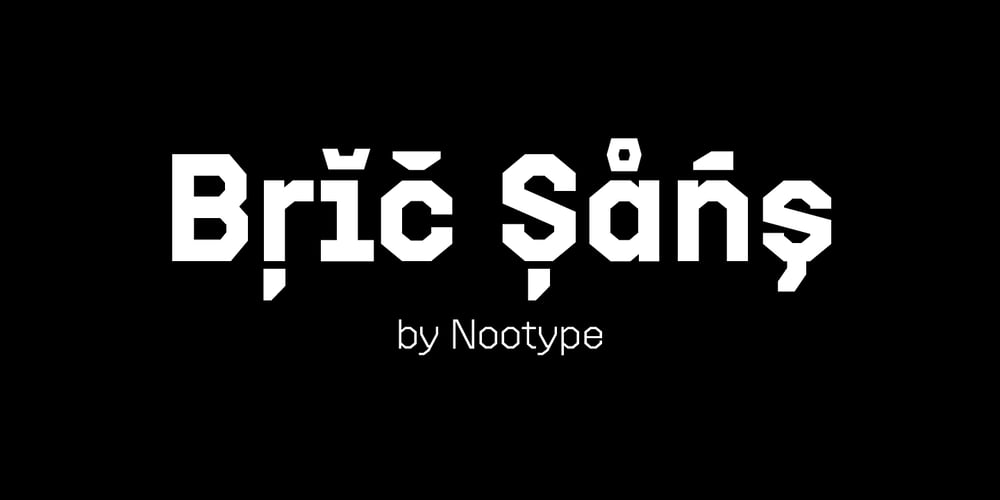
Bric Sans Font Family was designed by Nico Inosanto and published by Nootype. Bric Sans contains 12 styles and family package options. Bric Sans is squared, it was inspired by colleges typefaces. Capitals aren’t contrasted, giving a raw aspect to this typeface. The variety of styles makes this sporty typeface ideal for editorial projects, posters, packaging, branding, etc… The default setting of the numerals is tabular, proportional figures are available through OpenType Features. Bric Sans consists in a 12 styles family, including 6 weights in Condensed from UltraThin to ExtraBold. Each font includes OpenType Features such as Proportional Figure, Tabular Figures, Numerators, Superscript, Denominators, Scientific Inferiors, Subscript, Ordinals, automatic arrows and Fractions. The fonts have an extended characters set to support Central, Eastern and Western European languages.